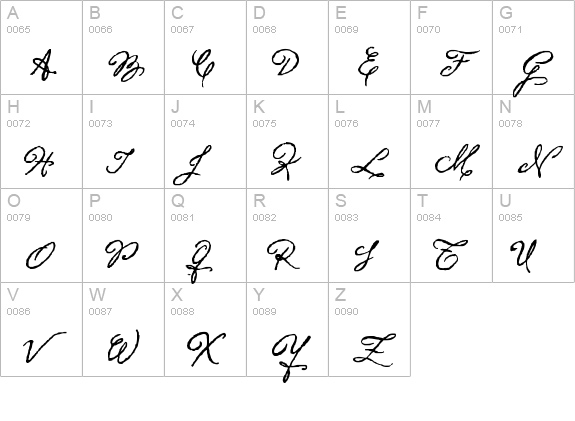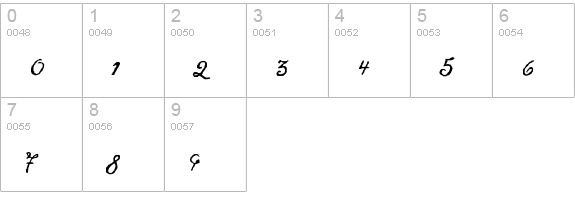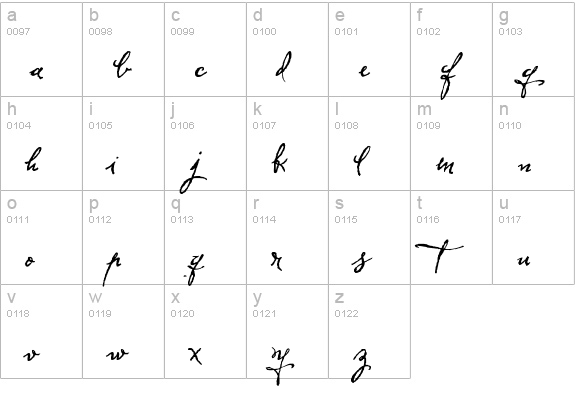
Herencia Font Details
Herencia font is a stunning typeface that exudes elegance and sophistication. With its classic yet modern design, this font is perfect for a wide range of design projects, from branding to editorial design. The sleek lines and balanced proportions of Herencia font make it a versatile choice for both display and body text. What makes Herencia font even more appealing is that it is completely free to download at FontsMarket.com. You can easily access this beautiful typeface and enhance your design projects without any cost. Whether you are a professional designer or a hobbyist, Herencia font is a valuable addition to your font collection. Download it today and elevate your designs with this exquisite and free font.